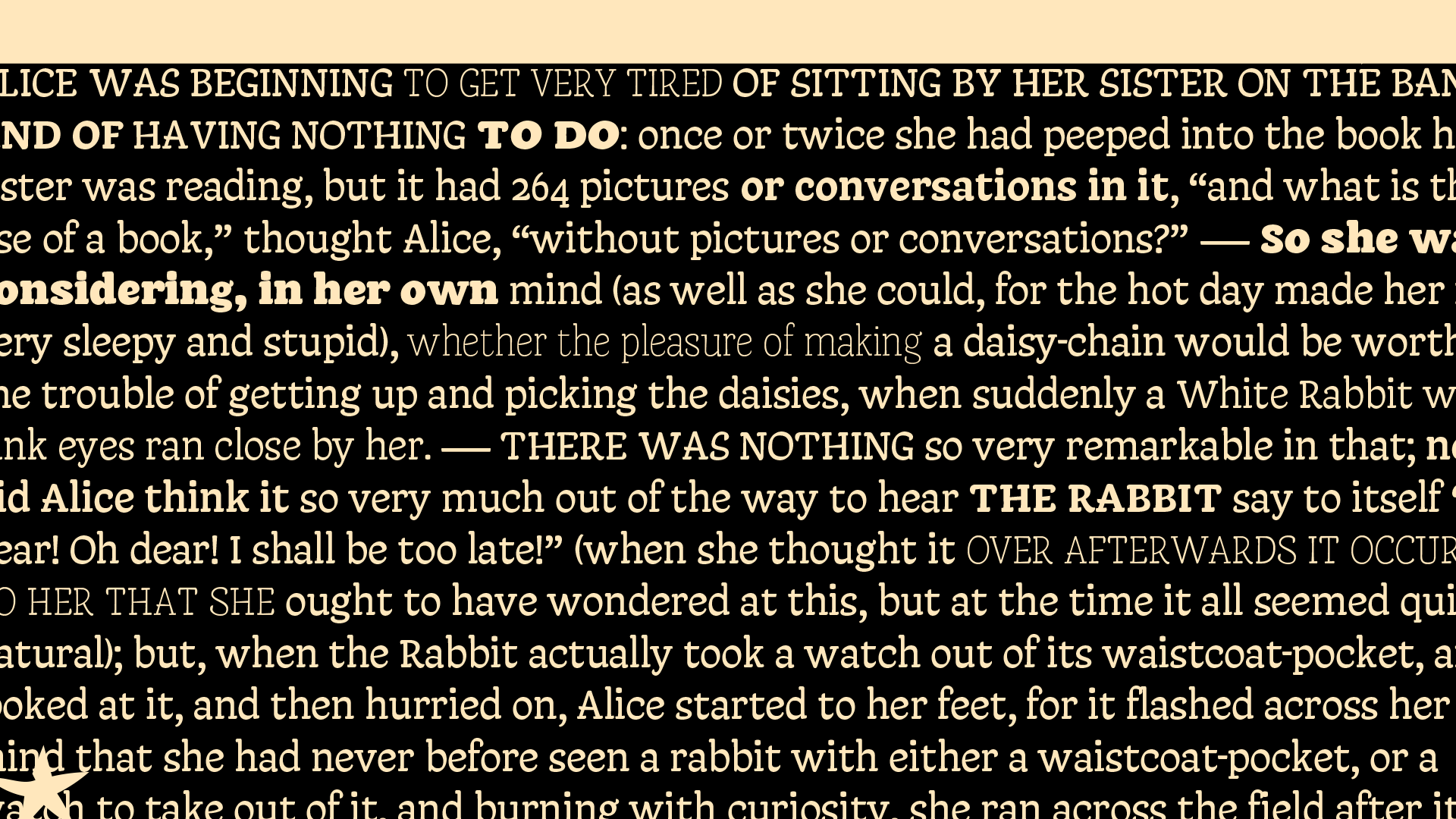
BilliBilli
BilliBilli is a text font with 9 different weightsBilliBilli, from Black to Thin. Its inspired by the rockabilly culture and sign painting forms. The idea was to create a typeface using a humanistic model ductus with a brush pen. In The 60s the rockabilly scene was very popular because of their dance moves and love for cars. I select a bunch of posters from that era that help me identify many things that I applied later in the design of my typeface.
The characteristics of BilliBilli are soft shapes that resembles brush lettering, with a reversed contrast that is very sutil, heavy weight to be read in text sizes, small high capital letters to mixed up with de lowercase letters. It can be used in large sizes so you can see all the little details that gave BilliBilli his personality and unique movement, in small sizes all this unique characteristics help to make a very soft readable typeface.
It has curved strokes to give a more human almost hand painted feeling. Its a fun, playful and joyful typeface.